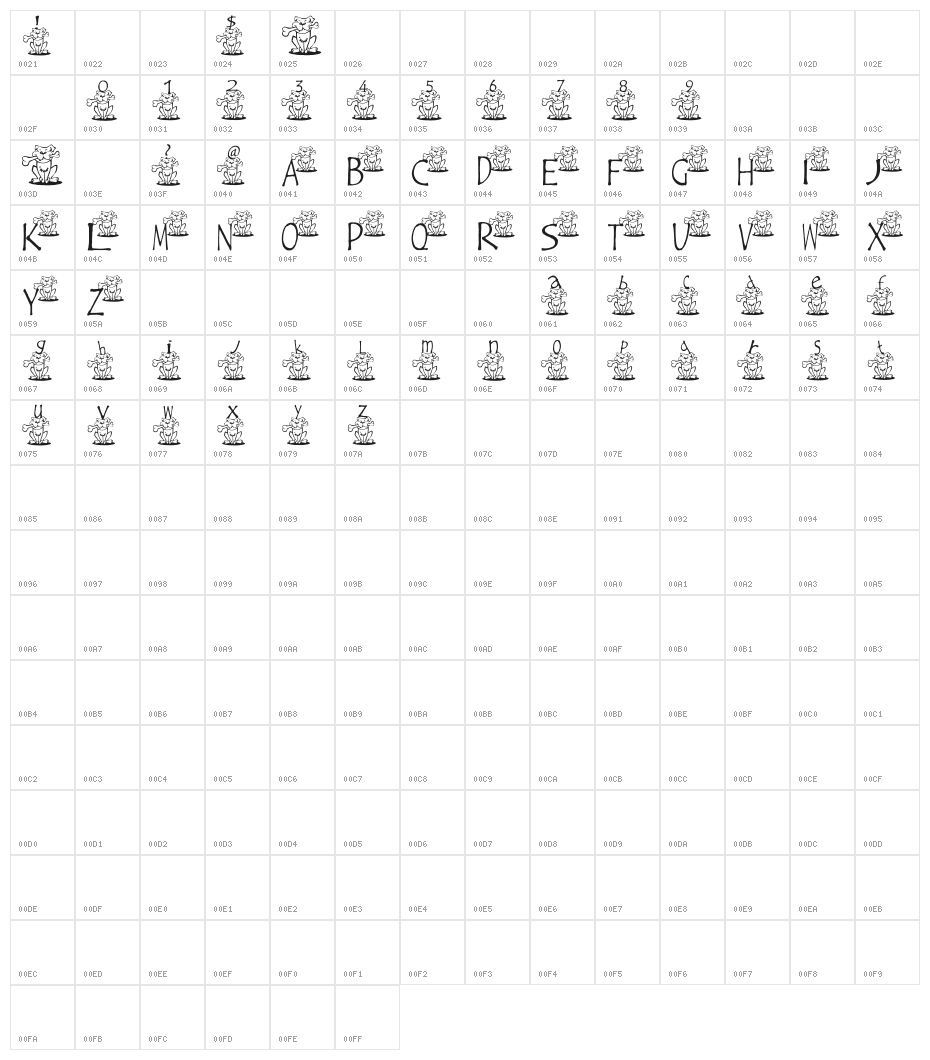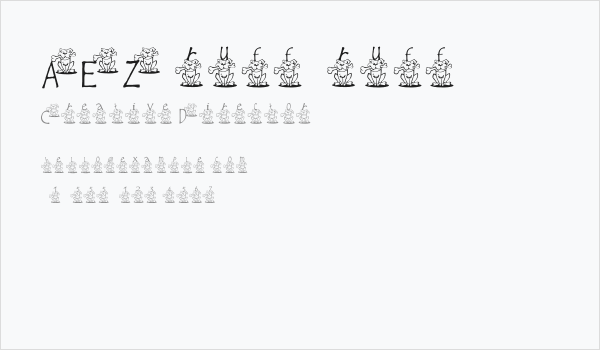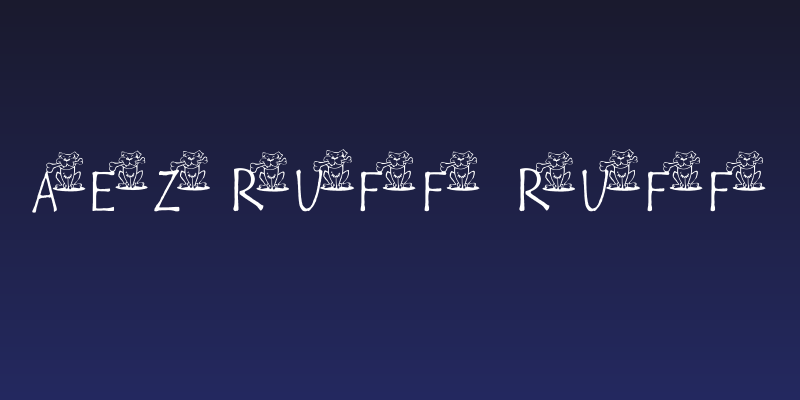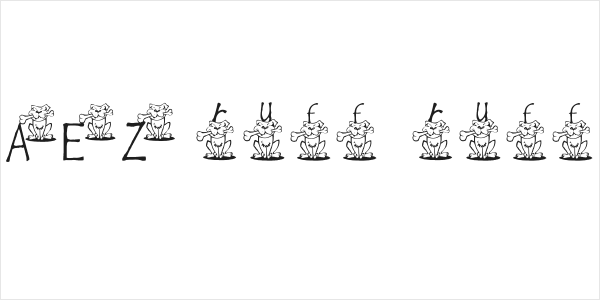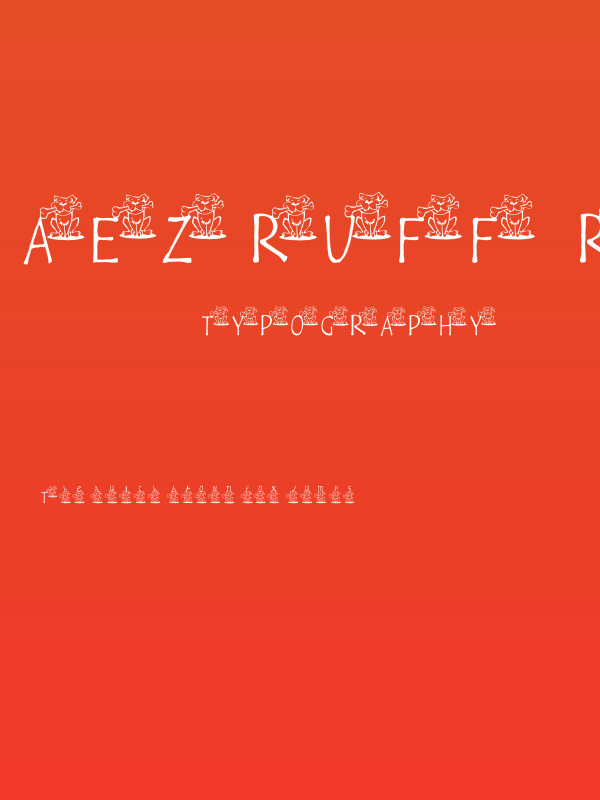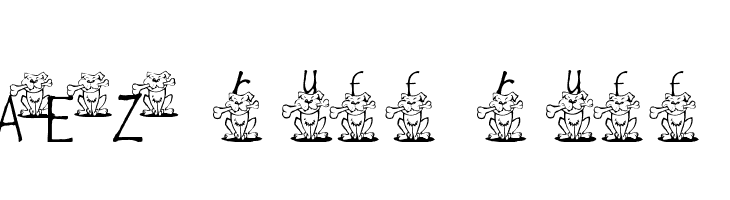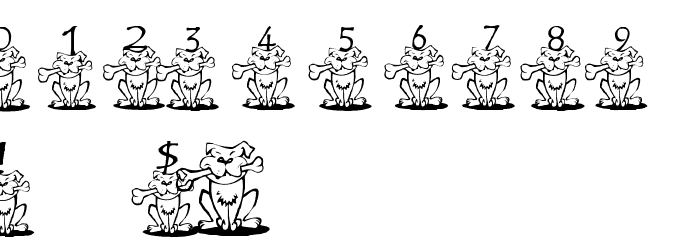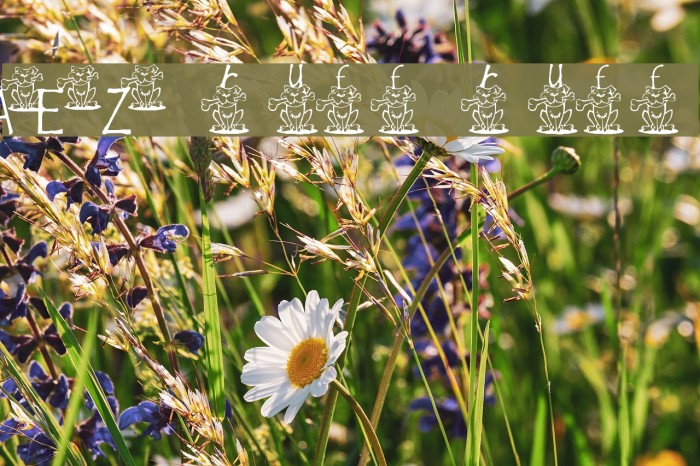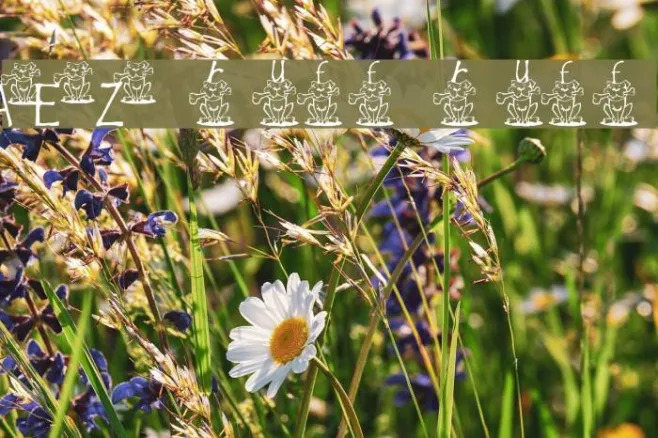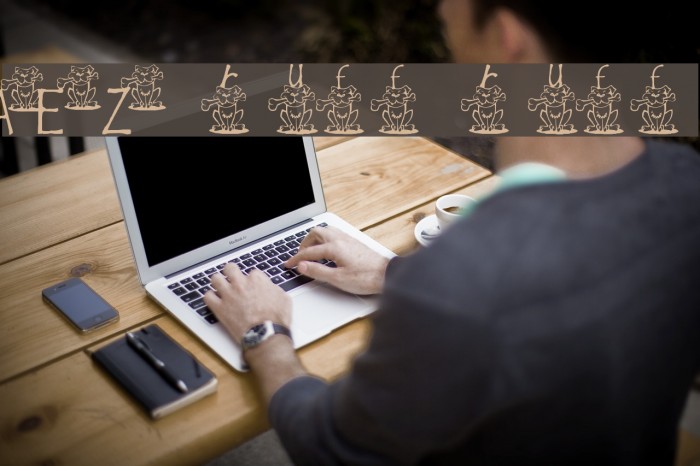
AEZ ruff, ruff Font
AEZ ruff, ruff Description
This playful and whimsical font features each character accompanied by a cartoon dog, adding a unique and humorous touch to the design. The letters themselves are slightly irregular and hand-drawn, contributing to a casual and friendly aesthetic. The uppercase and lowercase letters maintain a consistent style, with a slight variation in stroke width that adds to the hand-crafted feel. Numbers and special characters are also included, each with the same charming dog illustration, making this font ideal for projects that require a lighthearted and fun approach.
| Use Case | Headlines, Logos, Decorative text |
| Proposed Projects | Ideal for children's books, playful branding, greeting cards, and any project needing a fun and whimsical touch. |